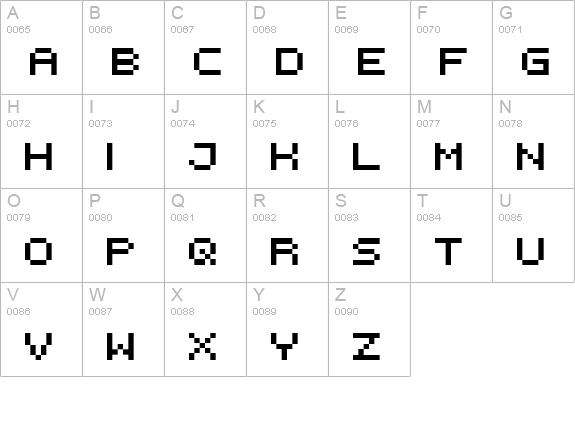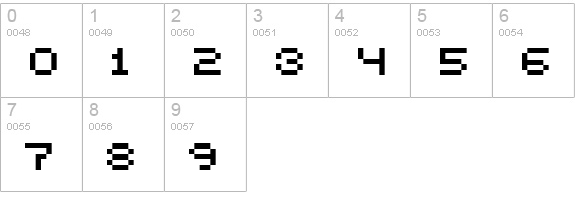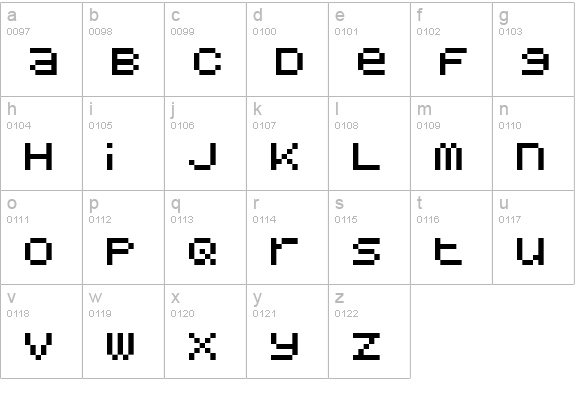
BitDust One Font Details
BitDust One font is a modern and stylish typeface that exudes a sense of sophistication and elegance. Its clean lines and unique design make it perfect for a wide range of projects, from branding to editorial design. The font's sleek appearance adds a touch of professionalism to any text, making it ideal for both digital and print applications. What sets BitDust One font apart is not only its aesthetic appeal but also its accessibility. This versatile font is available for free download at FontsMarket.com, making it easy for designers and creatives to incorporate it into their work without any additional cost. With its bold and eye-catching presence, BitDust One font is sure to make a lasting impression on any project it is used in.